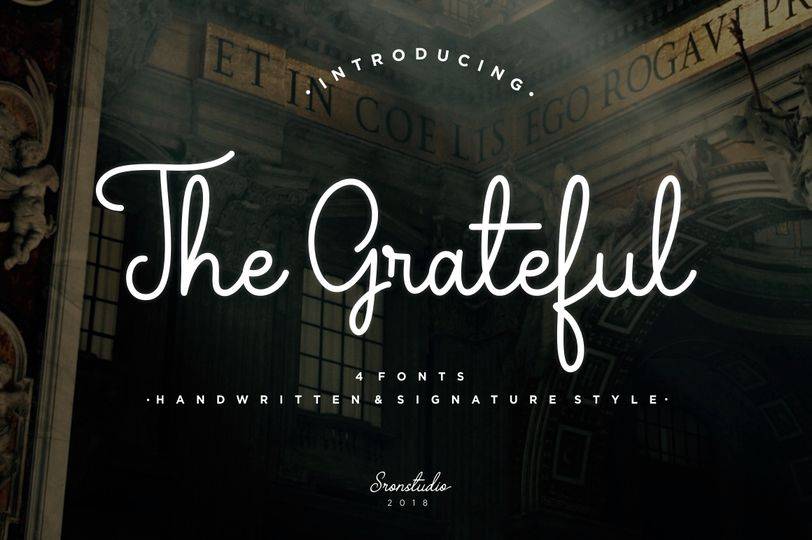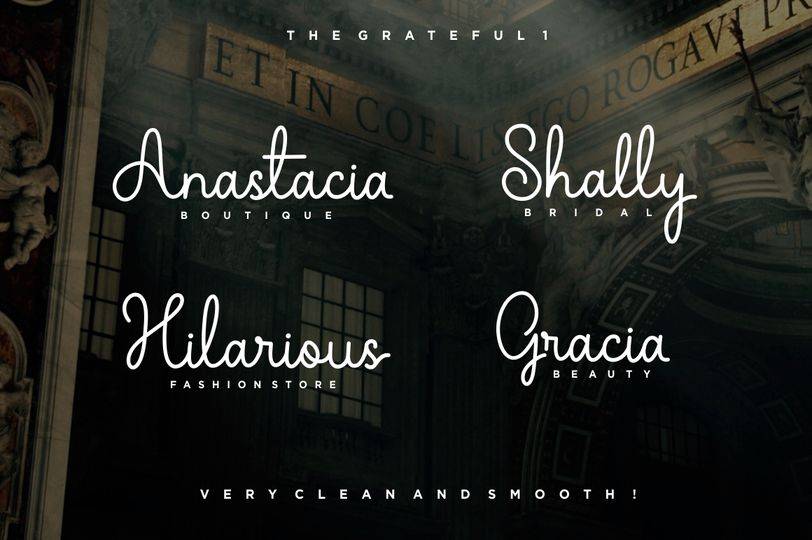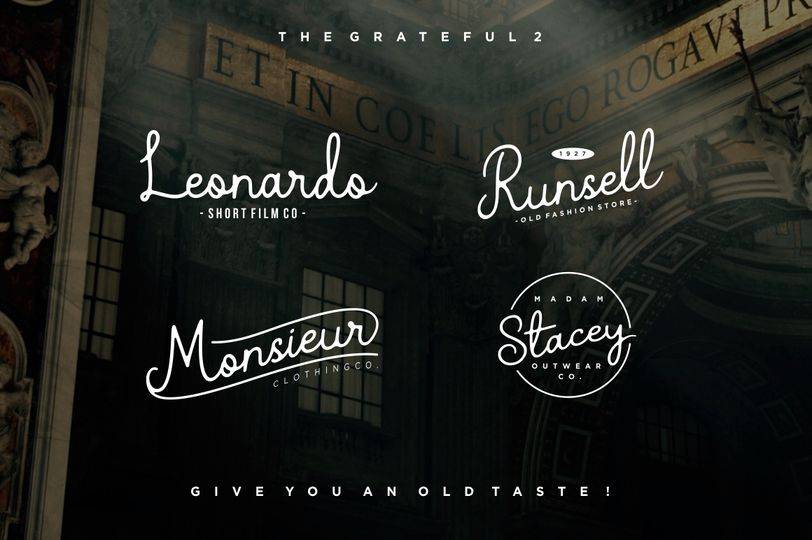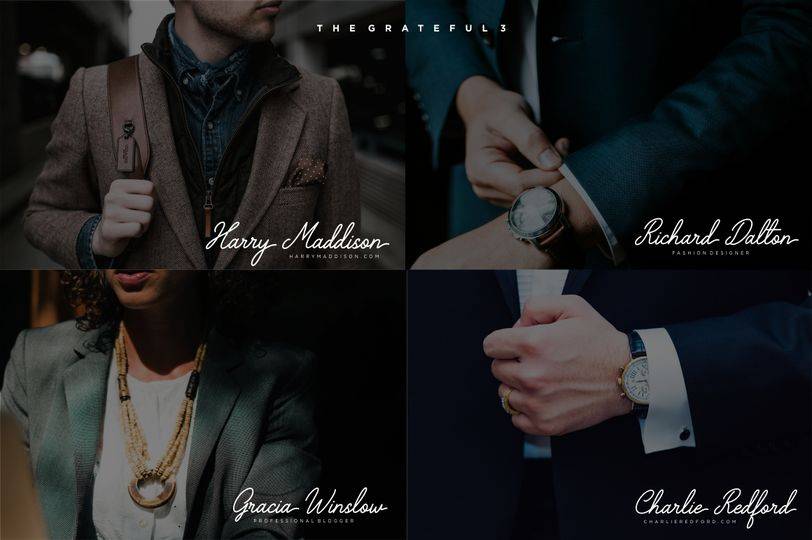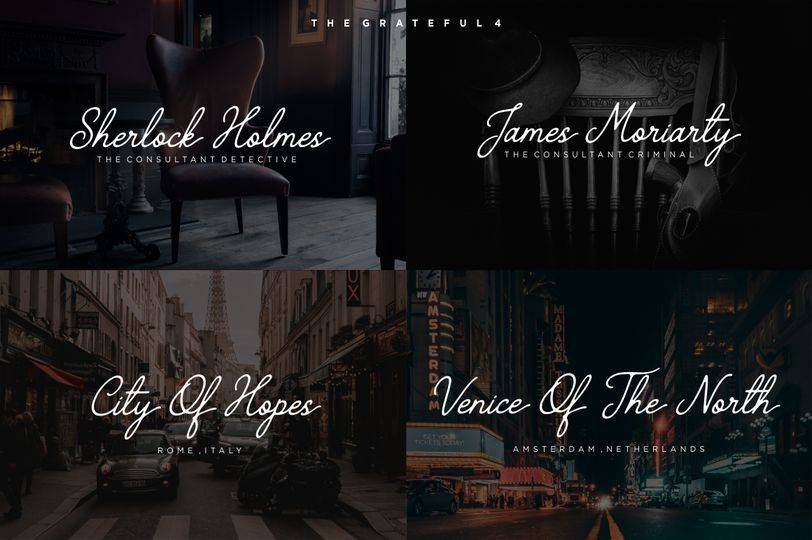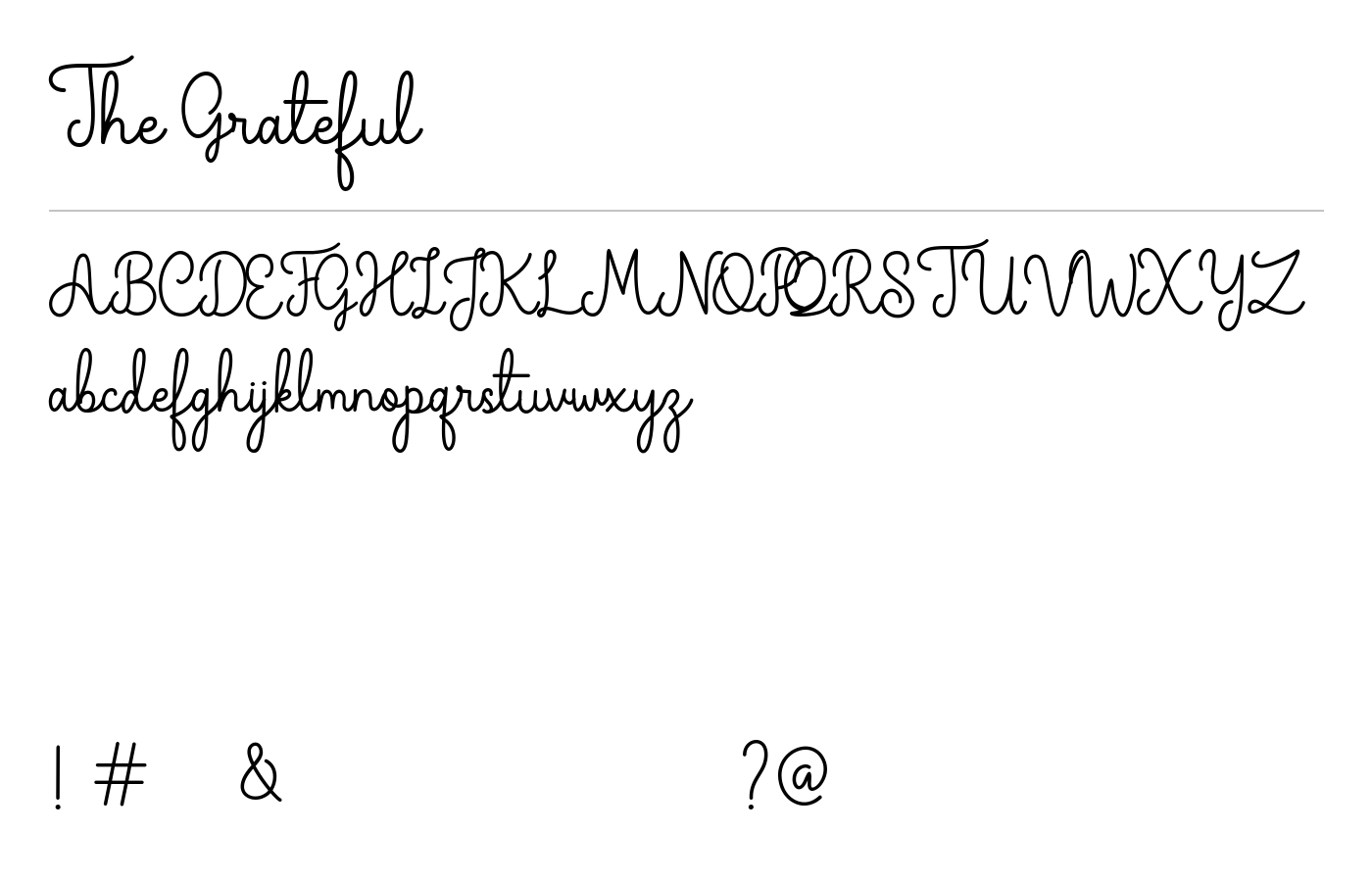
The Grateful Font is a playful and elegant script typeface with thin, fluid strokes that create a hand-drawn, whimsical feel. Its tall x-height and smooth curves make it friendly and approachable, ideal for personal branding, invitations, and creative projects that seek a light, charming touch. This font works beautifully in headlines and logos where a casual yet refined style is desired.
The Grateful Font
About The Grateful Font
| Font family | The Grateful Font |
| Designer | Sronstudio |